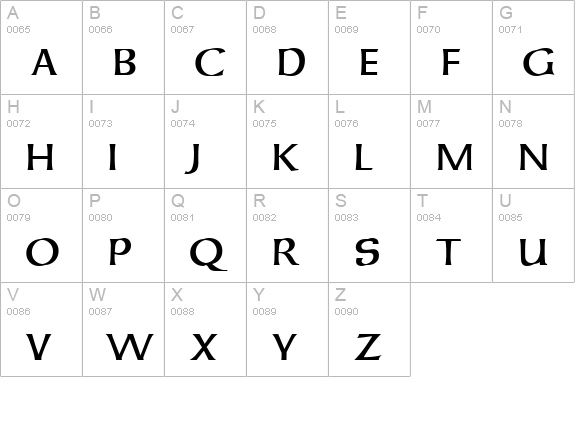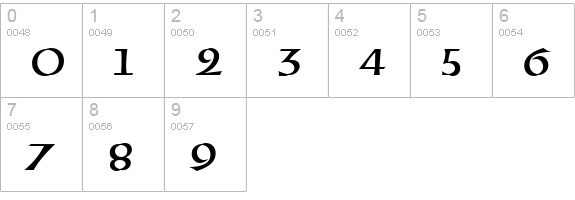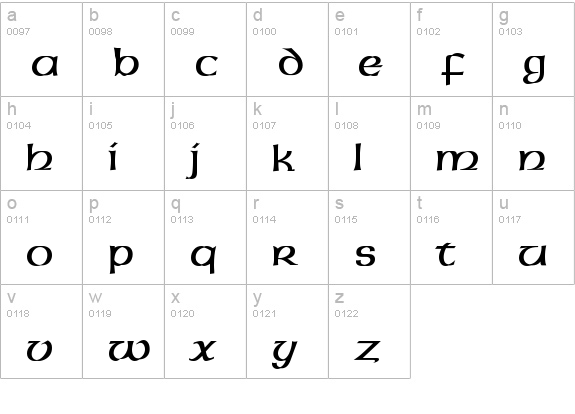
Uncial ATT Font Details
Uncial ATT is a captivating font that effortlessly merges elegance, history, and versatility. With its distinct Celtic influence, this font takes us back to the days of ancient manuscripts, beautifully handcrafted with meticulous attention to detail. The timeless appeal of Uncial ATT lies in its unique letterforms, characterized by rounded shapes and generous curves, creating an aura of graceful fluidity. This font truly stands out with its ability to adapt to a wide range of design projects. Whether you're looking to add a touch of sophistication to your invitations, create eye-catching headlines for your website, or design a logo that exudes both tradition and modernity, Uncial ATT is the perfect choice. What makes Uncial ATT even more remarkable is that it is freely available to download at FontsMarket.com. This means that you can effortlessly access this stunning font without any cost, allowing you to explore its boundless creative potential. Whether you're a professional designer or an enthusiastic hobbyist, the accessibility of Uncial ATT empowers you to bring your visions to life without any limitations. Embrace the beauty of Uncial ATT and let its timeless charm elevate your designs to new heights. Download it for free at FontsMarket.com and embark on a journey of creativity and artistic expression that knows no boundaries.